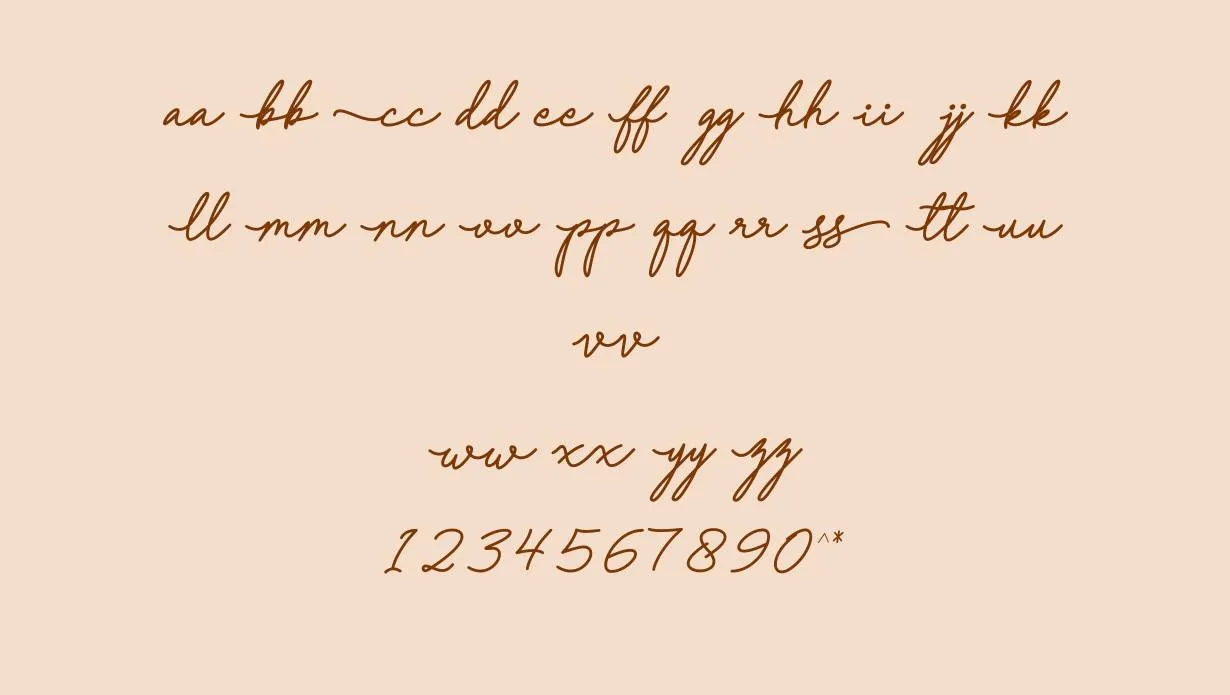
The Coffee Signs Font is a handwritten monoline font with a coffee theme that is truly amazing. This eye-catching typeface has a relaxing feel and is perfect for any project that requires a stylish and contemporary look.
It includes a full set of gorgeous uppercase and lowercase letters, numerals, and a large range of punctuation and ligatures.
- Coffee Signs Regular
View of Coffee Signs Font
| Style | Handwritten |